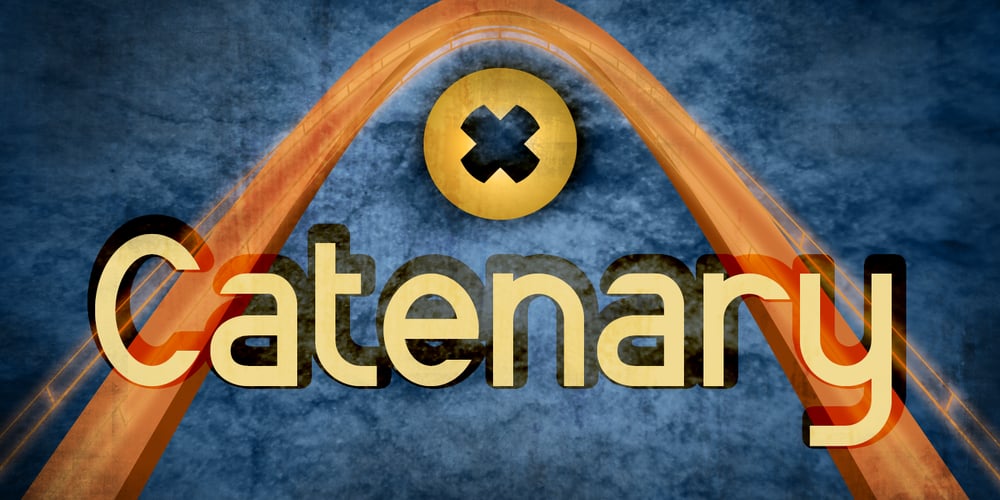
Catenary
Catenary font
Catenary Font Family was designed by C.C. Marshall and published by Active Depth. Catenary contains 9 styles and family package options. The Catenary typeface was designed with the goal of creating an extremely-readable sans-serif font that could weather the future. Inspired by the beauty of the catenary curve, it’s a blend of the transitional and the geometric that allows it to be readable while keeping its forms precise and consistent. Every character in its set is unique, leaving no confusion between similar letter forms. Sixes and nines can be distinguished even when they’re upside down or sideways. The number one, the lowercase-L, and the uppercase-I can never be confused with one another, even without context. Throw b, d, g, p, and q into a jumble and the challenge of distinguishing the characters can easily be overcome. The Catenary family consists of eight fonts, six of which, the standard light/italic, regular/italic, and bold/italic, work as both excellent text fonts and exceptional display fonts. The two bonus fonts, a stencil and a guerrilla grunge style, make for great additional display font choices. The Catenary family is extremely versatile and ready for your toughest design work.